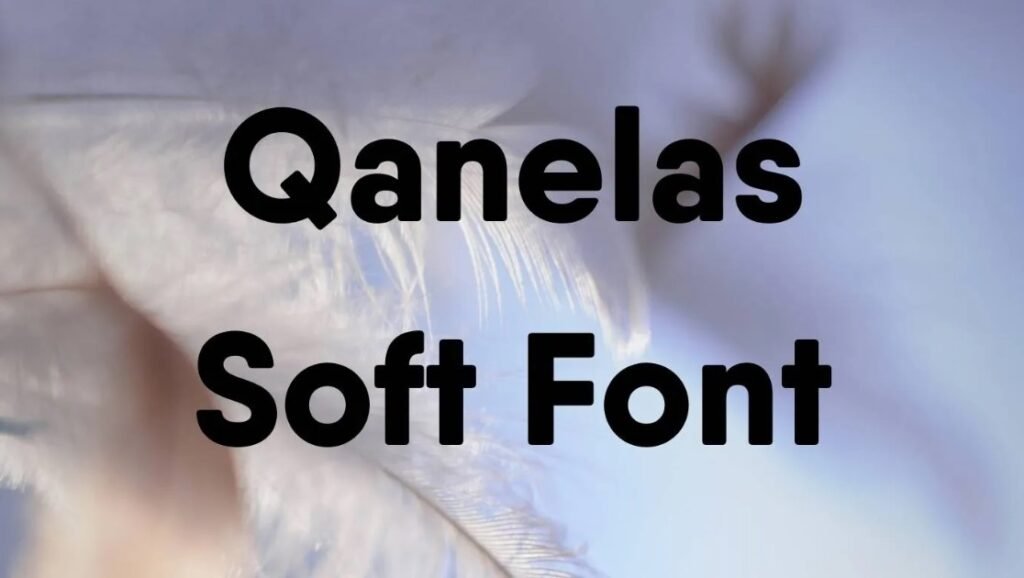
Qanelas Soft font was designed contemporarily by Radomir Tinkov as a sans-serif typeface. It is a derived variant of the original Qanelas font family which combines softness and approachability. It balances geometric accuracy with warmth, making it useful for different types of design work.
The smooth edges and neat lines of the font are attractive to modern graphic designers, UI and UX professionals, branding specialists, and even typeface designers who look for modernity or professionalism with a friendlier touch.
What is the Qanelas Soft Font?
In the year 2016, Bulgarian designer Radomir Tinkov released part of the Qanelas font family called “Qanelas Soft.” This typeface was created with the intention of being friendlier than its predecessor, Qanelas. Even though Qanelas Soft maintains its geometric foundation, Qanelas is made more appealing and readable by the introduction of gentle curves, ape rounded edges, and other soft features.
This design approach makes it suitable for both digital interfaces and print media, where clarity and approachability are paramount.
Key Features of the Qanelas Soft Font
Rounded Terminals and Smooth Letterforms
Qanelas Soft distinguishes itself with its rounded terminals, imparting a gentle and welcoming feel. The smooth letterforms contribute to a harmonious visual flow, enhancing legibility across various mediums.
Humanist Geometric Style
While rooted in geometric principles, Qanelas Soft incorporates humanist elements, resulting in a typeface that feels both structured and organic. This blend ensures versatility, allowing it to adapt seamlessly to diverse design contexts.
Extensive Weight Range
The font family boasts 20 styles, encompassing 10 upright weights from Thin to Black, each accompanied by its italic counterpart. This extensive range provides designers with the flexibility to establish clear typographic hierarchies and adapt to various design requirements.
OpenType Features and Multilingual Support
Qanelas Soft comes packed with powerful OpenType features like alternate characters, ligatures, fractions, arrows, and broad language support—including Cyrillic.These features enhance its functionality and adaptability in complex design projects.
Applications and Use Cases of the Qanelas Soft Font
Branding and Visual Identity
Qanelas Soft’s clean and modern aesthetic makes it an excellent choice for branding and visual identity projects. Its friendly yet professional appearance helps convey trust and approachability, essential qualities in brand communication.
User Interface (UI) and App Design
The font’s clarity and legibility at various sizes make it ideal for UI and app design. Its geometric structure ensures consistency across digital interfaces, enhancing user experience.
Editorial Layouts and Magazine Headlines
In editorial design, Qanelas Soft offers versatility, functioning effectively in both headlines and body text. Its range of weights allows for dynamic typographic compositions, contributing to engaging and readable layouts.
Corporate Presentations and Infographics
For corporate materials, Qanelas Soft provides a balance between formality and friendliness. Its legibility and clean design enhance the clarity of presentations and infographics, facilitating effective communication.
Modern Website Typography
Web designers favor Qanelas Soft for its modern look and readability on screens. Its compatibility with webfonts ensures consistent typography across different browsers and devices.
Conclusion:Qanelas Soft Font
The Qanelas Soft Font has emerged as a contemporary geometric sans serif typeface characterized by warmth and precision. Its applicability across different creative fields such as branding, UI design, and editorial layouts makes it useful for professionals looking for a friendly touch to their work.
Its extensive weight range, multitude of OpenType features, Qanelas Soft’s multilingual capability ensures flexibility to different designs.